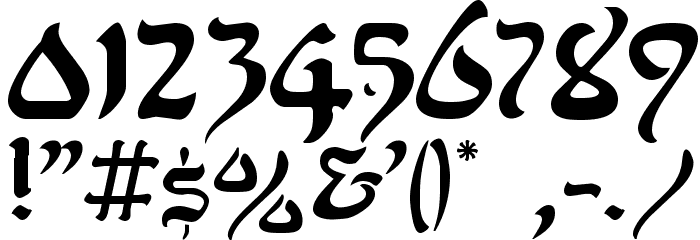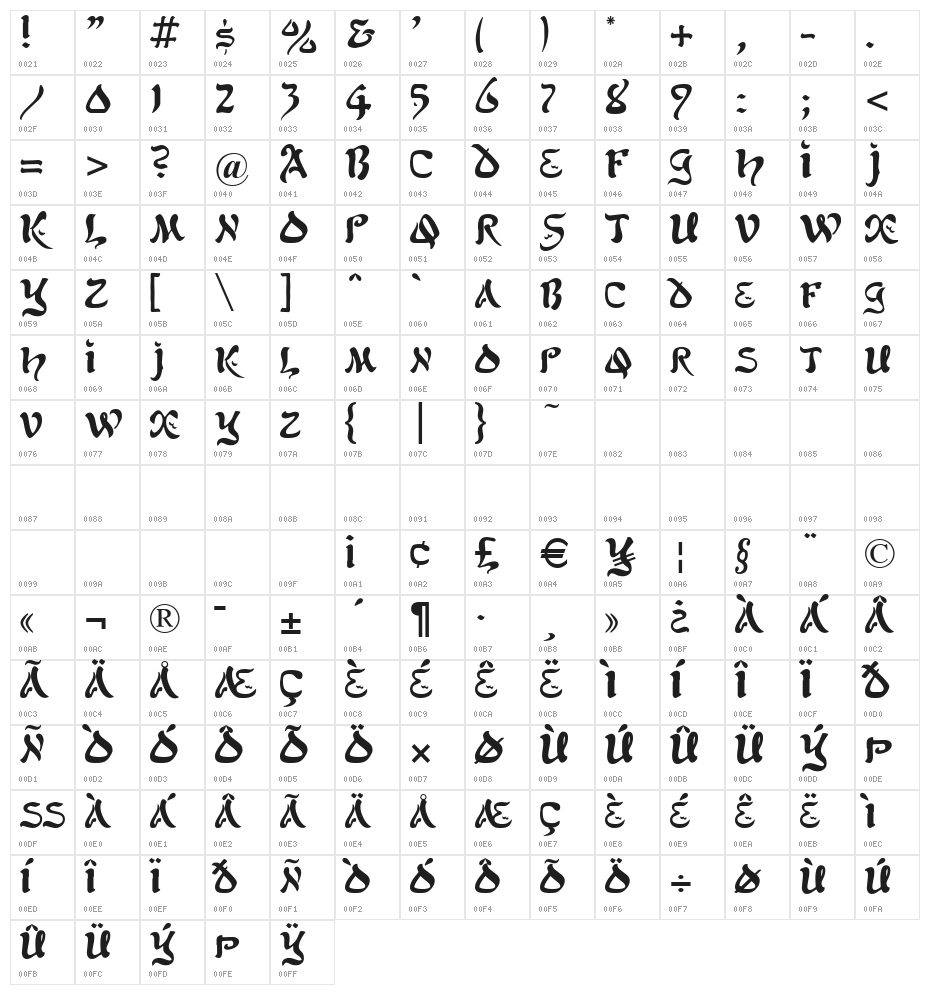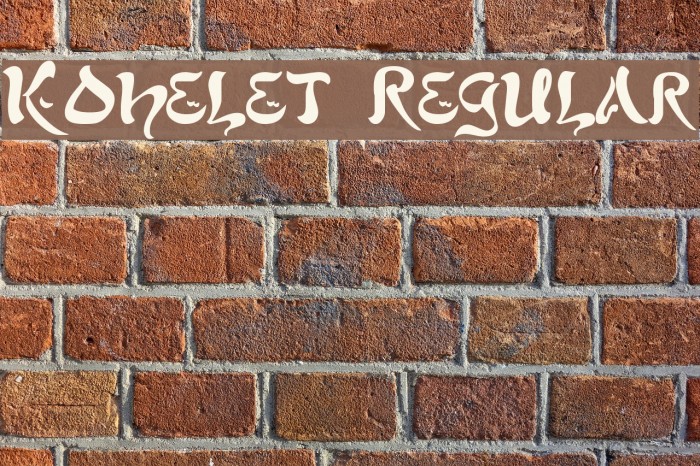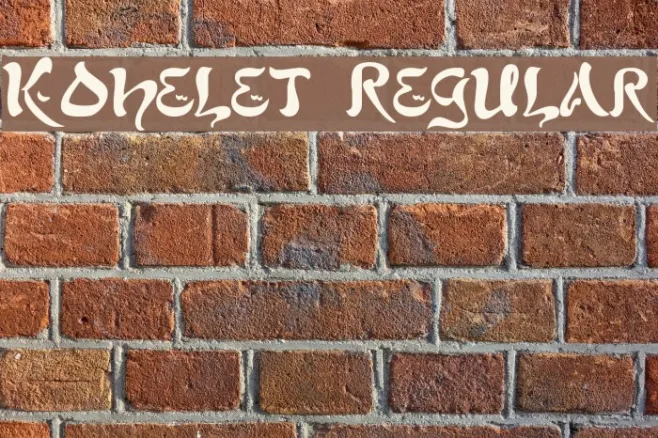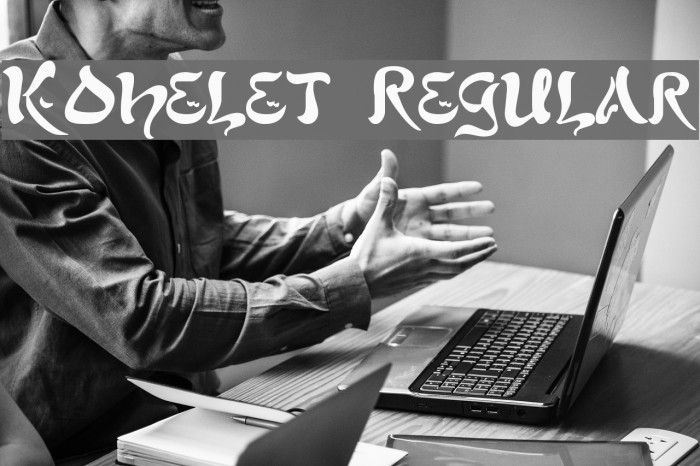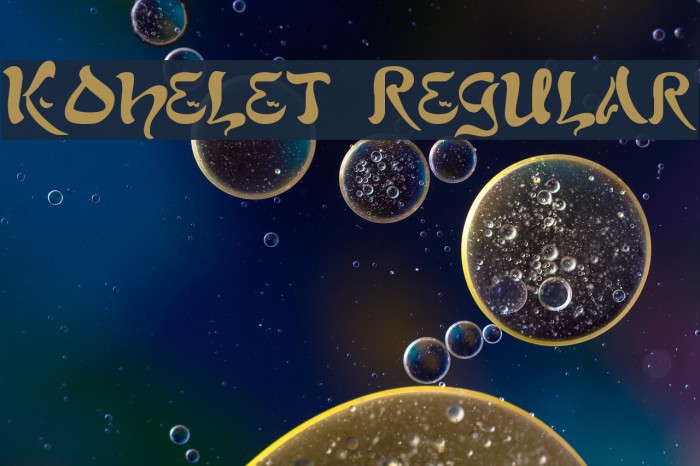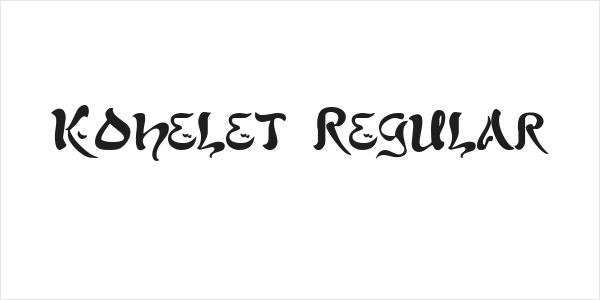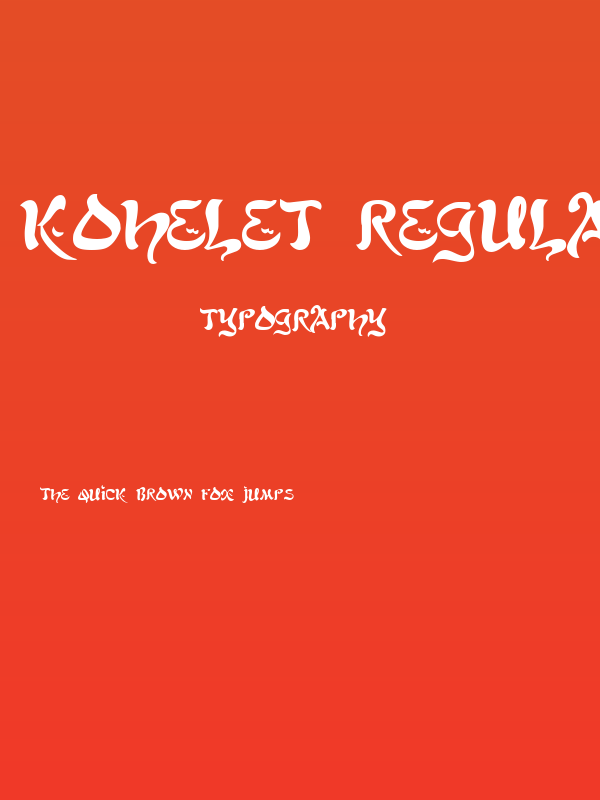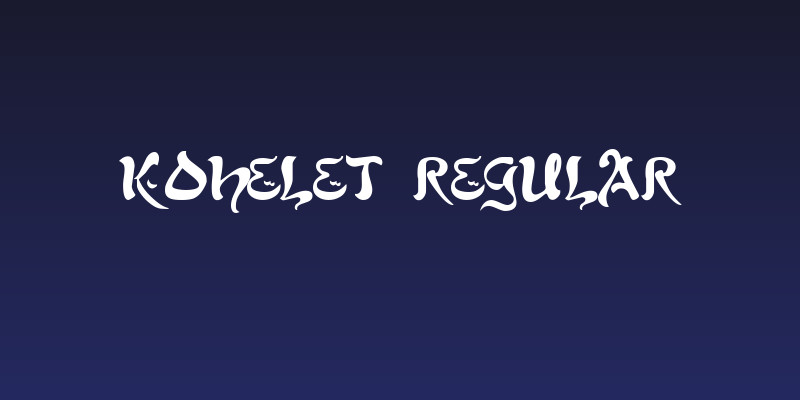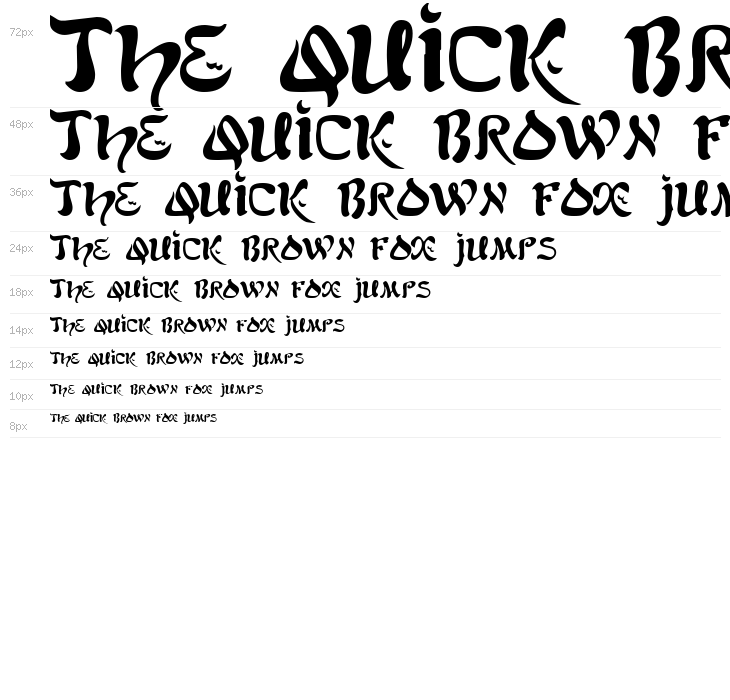
Kohelet Regular Font
Kohelet Regular Description
This font exhibits a unique and artistic style, characterized by its bold and flowing strokes that give it a calligraphic appearance. The letters are crafted with a sense of movement and flair, featuring sharp edges and dramatic curves. The uppercase and lowercase letters maintain a consistent style, with a distinct emphasis on the vertical strokes. Numbers and special characters are designed to complement the overall aesthetic, adding to the font's cohesive look. The font's design is reminiscent of traditional scripts, yet it carries a modern twist, making it suitable for a variety of creative projects.